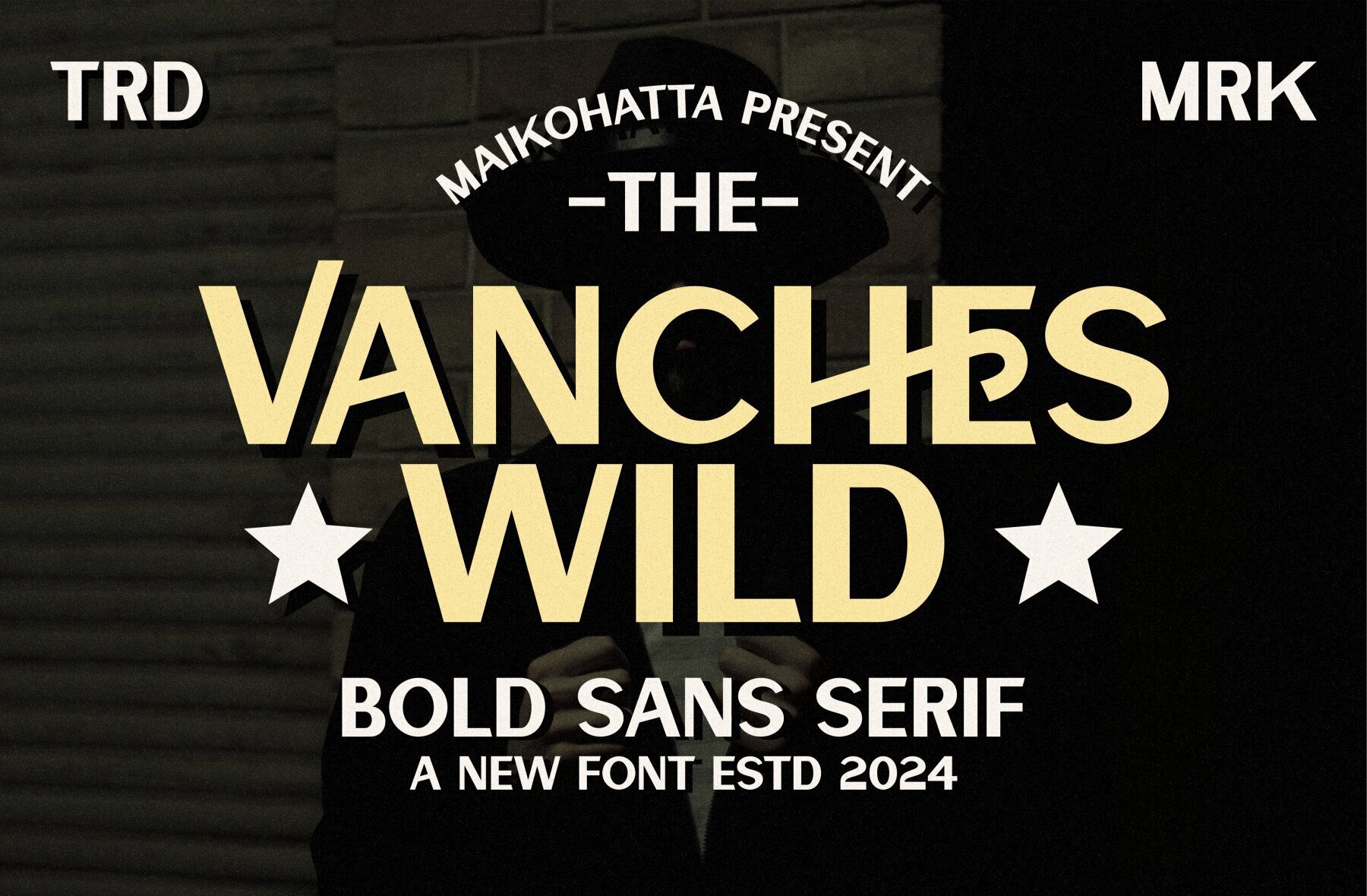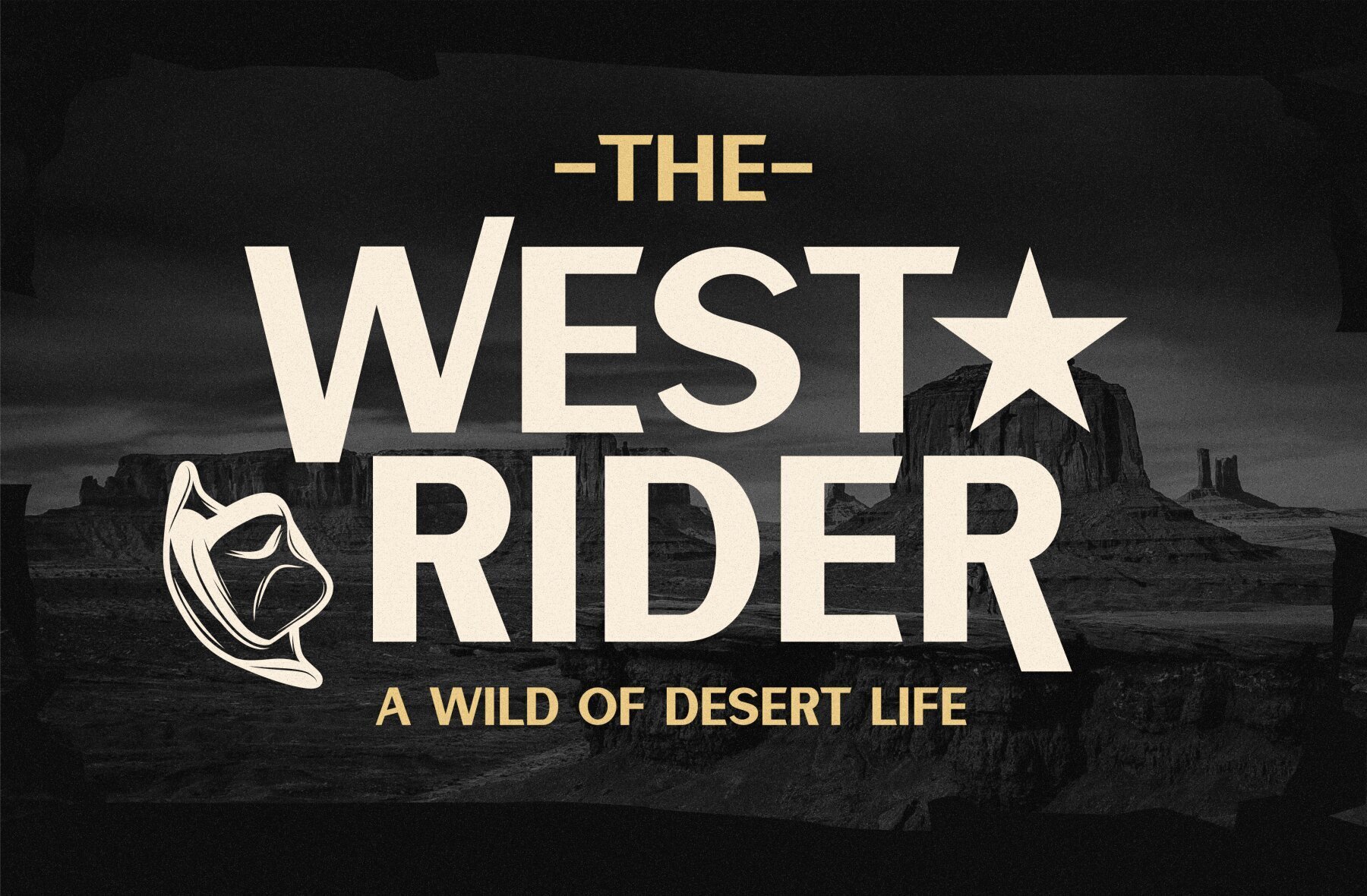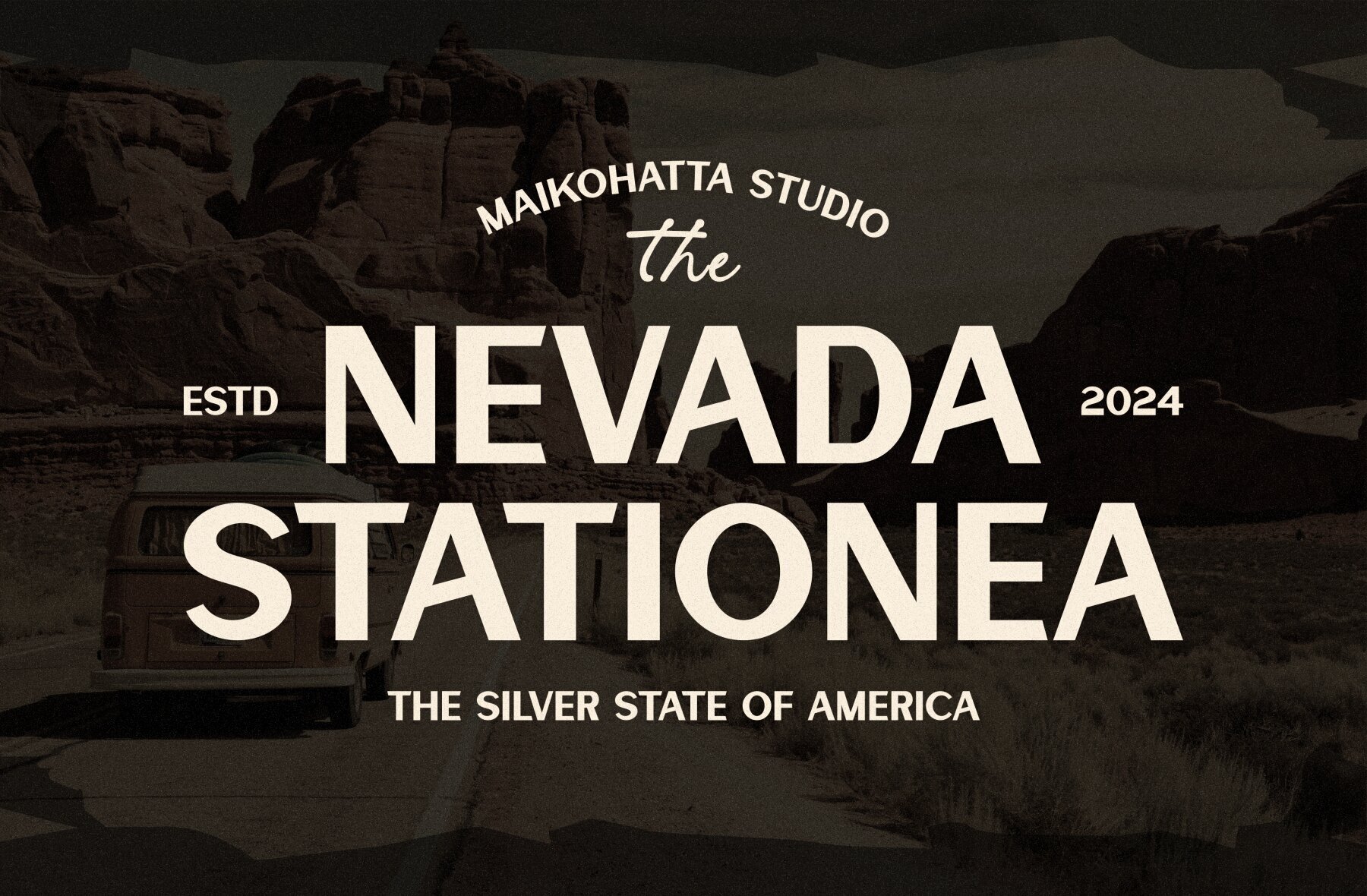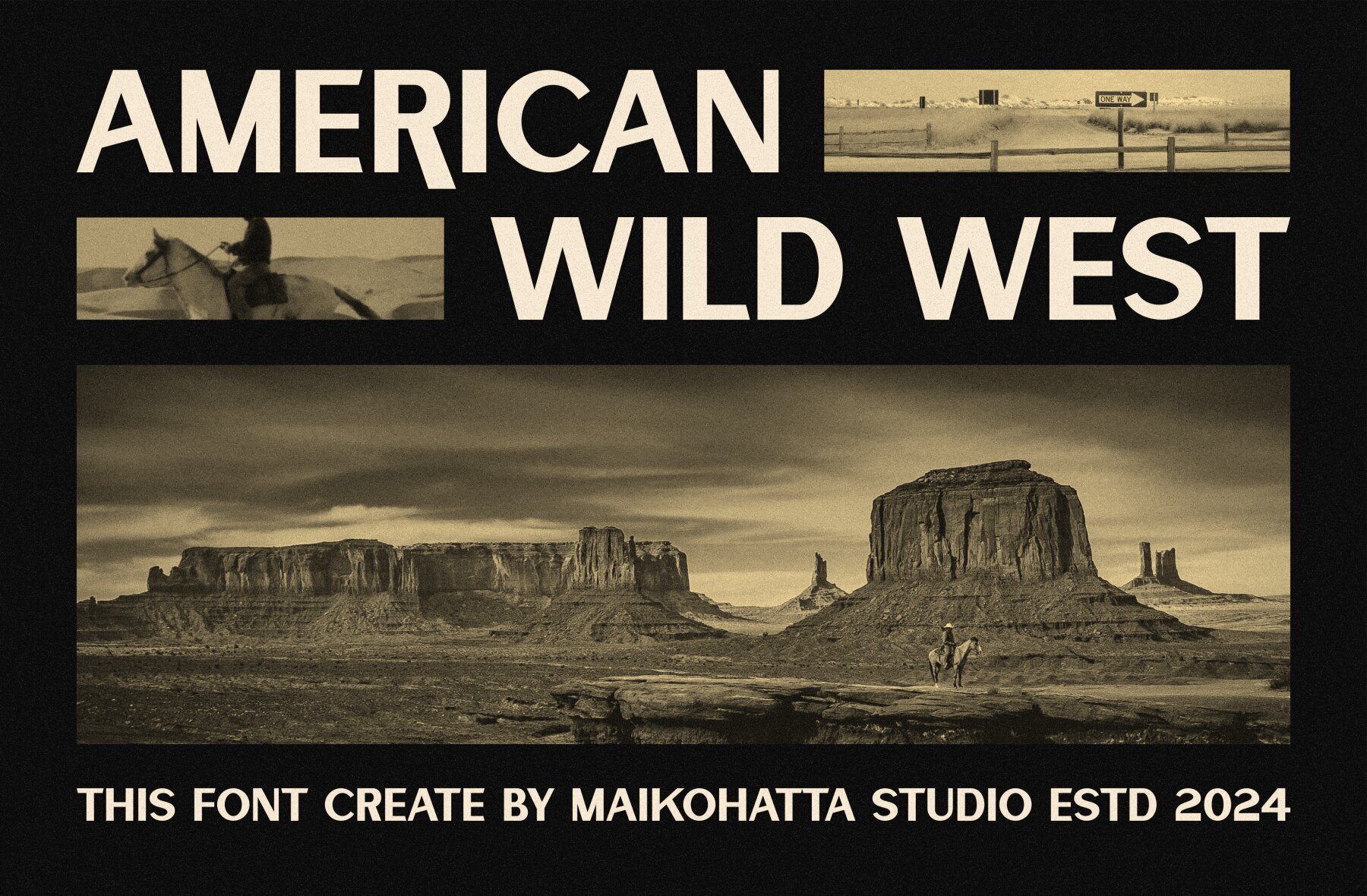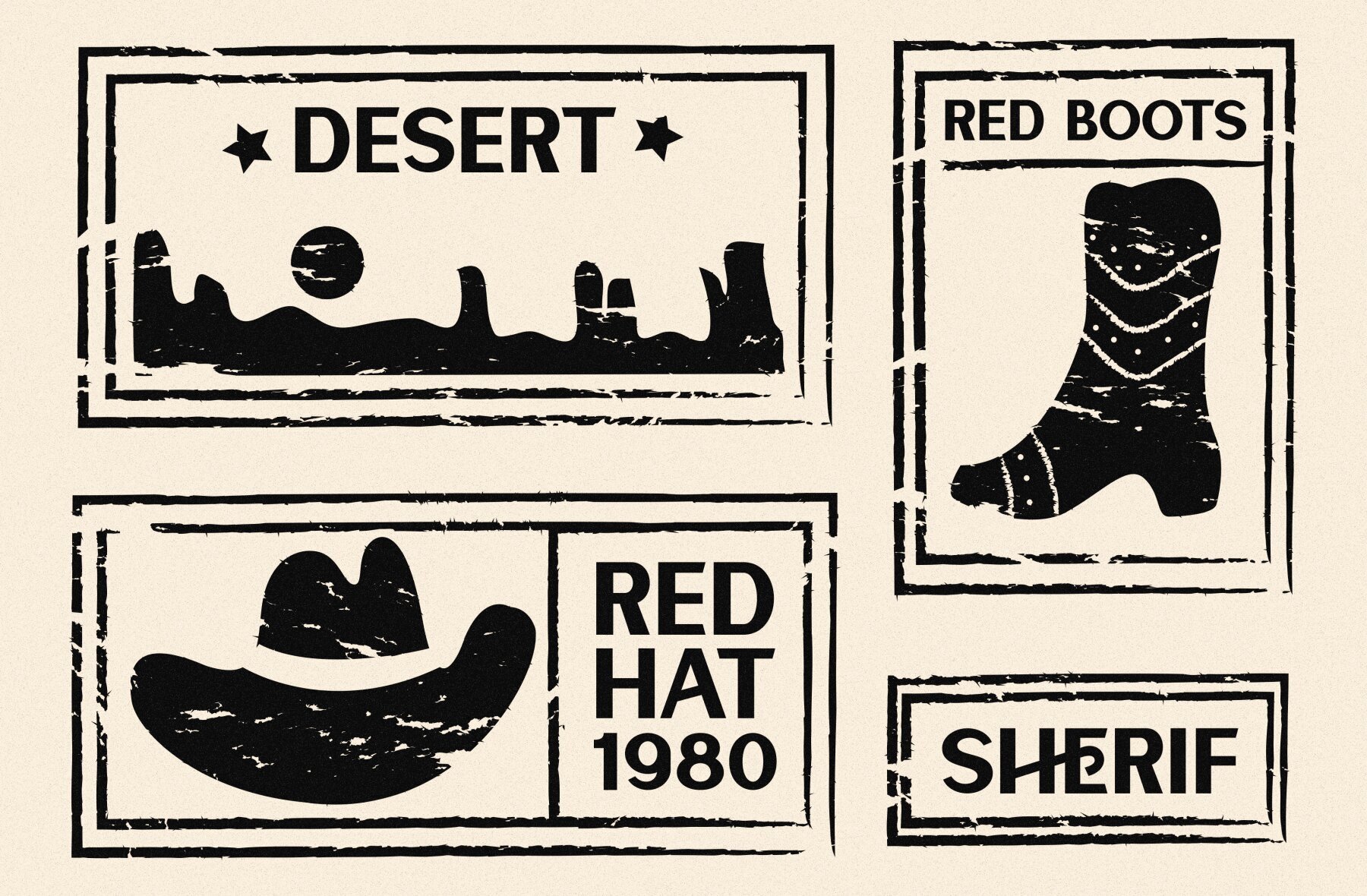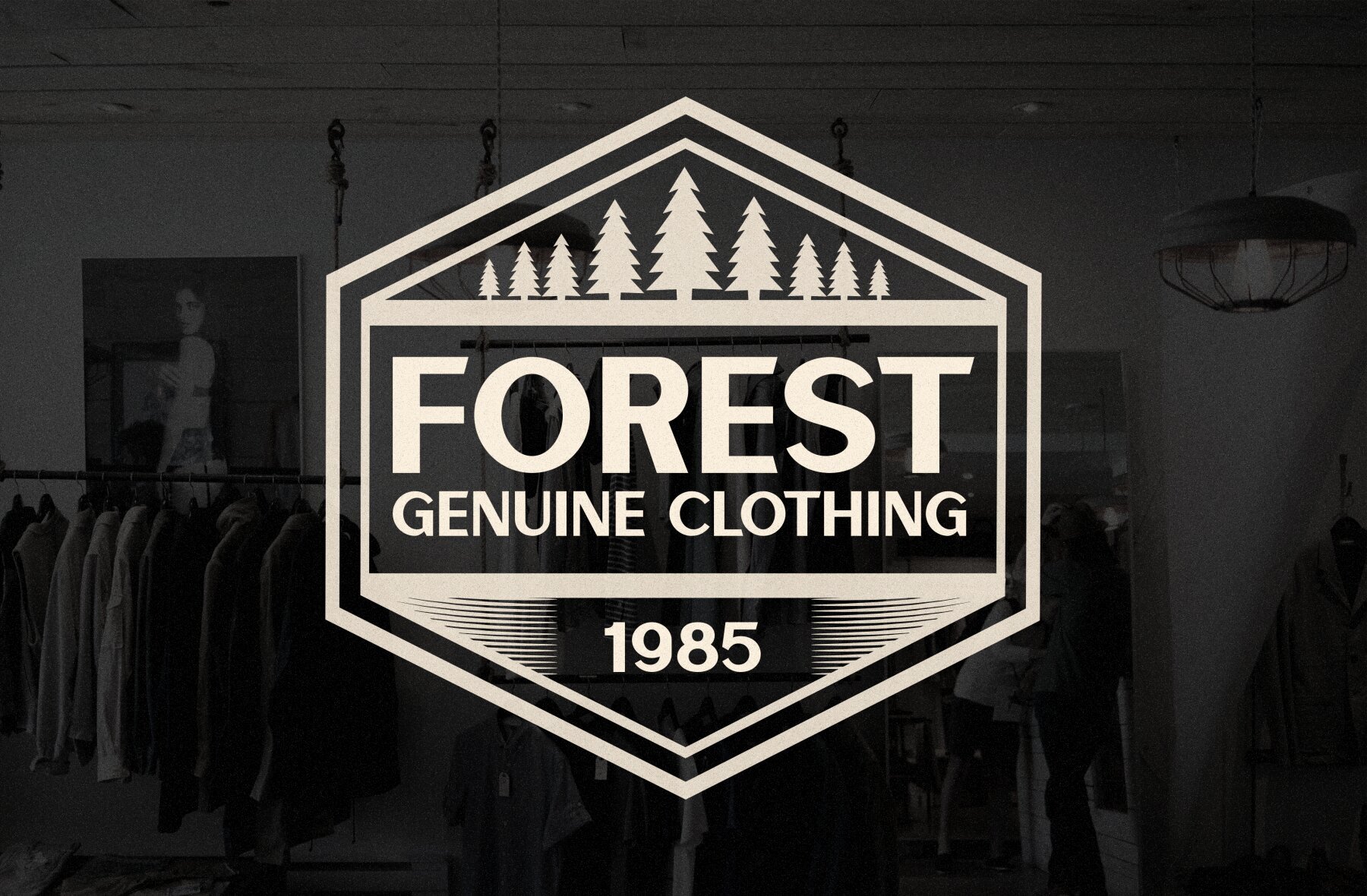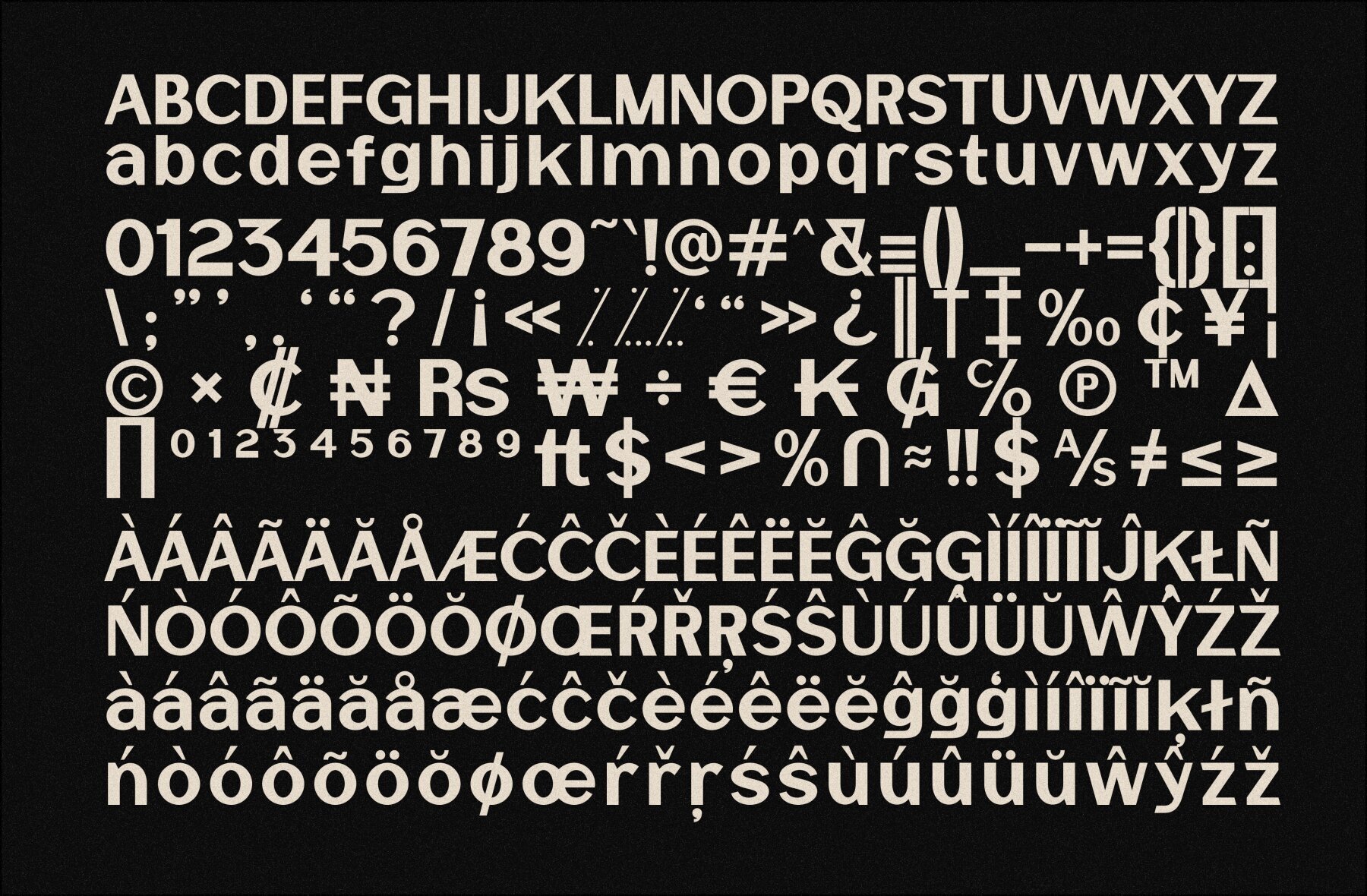
Vanches Wild 1
Vanches Wild offers versatility for various design contexts, delivering a clean, professional, and contemporary look. Ideal for graphic design and modern typography, this sans serif font includes uppercase, lowercase, multilingual support, and ligatures for added creativity and flexibility.